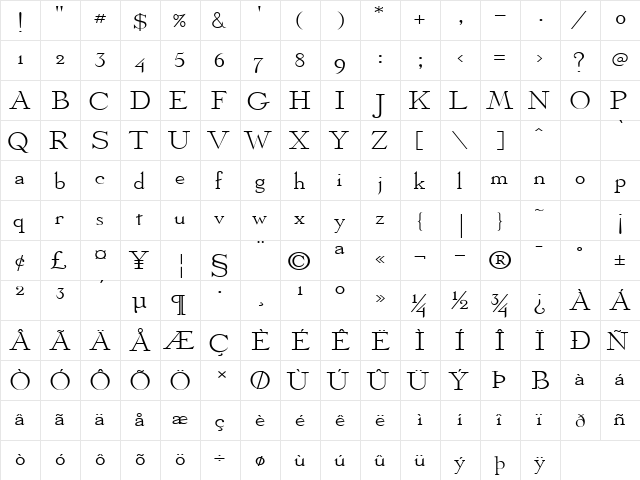
Olympus-Extended Normal
Design Context for Olympus-Extended Typeface
Olympus-Extended is a composed and adaptable typeface that performs quietly and consistently across a wide range of design contexts.